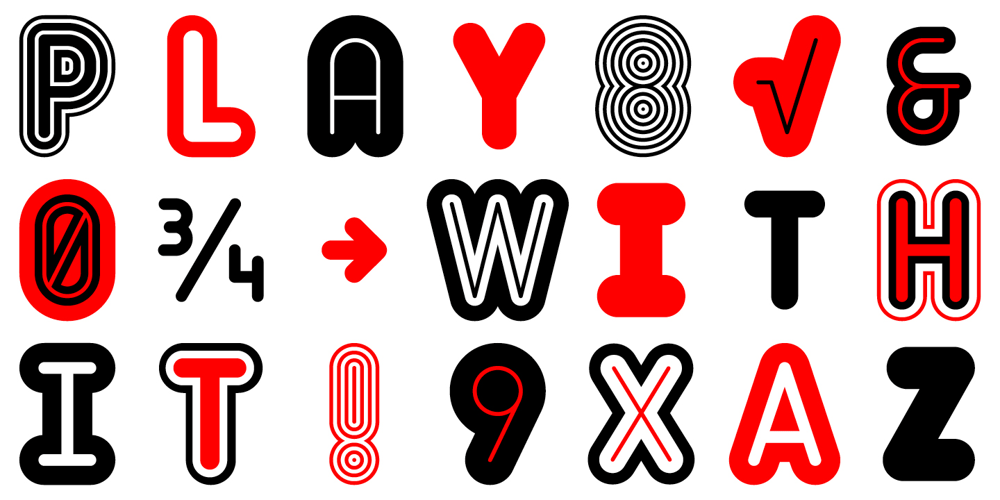
Matryoshka
Matryoshka font
Matryoshka Font Family was designed by Peter Brugger and published by Volcano Type. Matryoshka contains 8 styles and family package options. Matryoshka is a display layering type family which is inspired by the Russian wooden doll. The family contains eight different weights from XXS (thin) to XXL (fat) + Pregnant (all in one). The design is based on an elaborate and complex grid, so each font fits perfectly into the other. With the Matryoshka family the typographer can create millions of new solutions. Play with it!